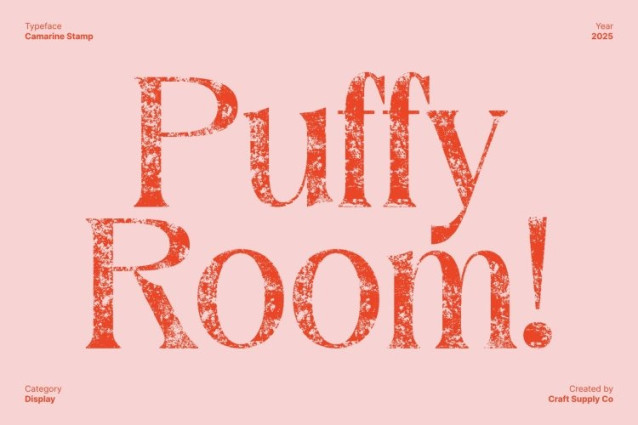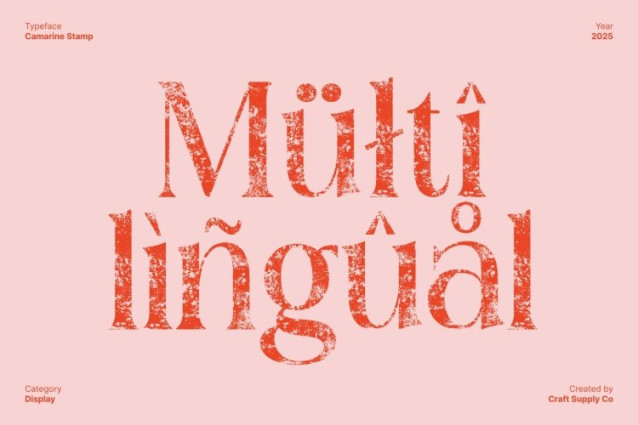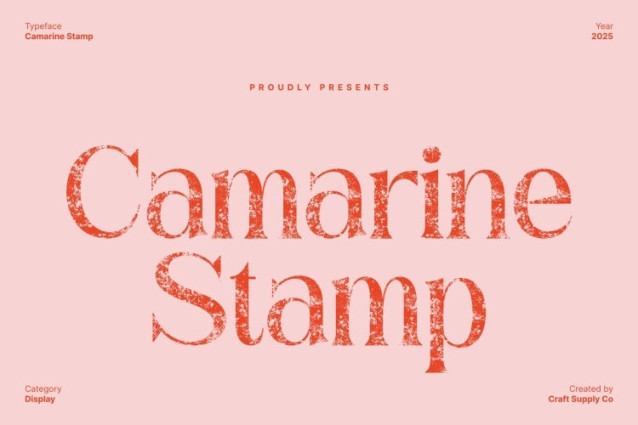
Camarine Stamp Font This is a modern classic serif font designed with slender serifs and a clean, contemporary structure. Its refined shapes and balanced proportions create a stylish, polished appearance that feels both timeless and current. This sophisticated form makes the font perfect for designers seeking elegance with a modern edge.
Expressive Stamp Texture for Artistic Character
Enhanced by a distinctive stamp effect, this brings depth, personality, and artistic imperfection to its elegant serif construction. The textured finish gives each character a handcrafted, vintage-inspired feel adding emotion and expressiveness to your typography. This combination of refinement and raw texture creates a dramatic visual presence.
Ideal for Vintage Branding, Editorials, Posters, and Creative Projects
Perfect for high-end branding, editorial layouts, dramatic posters, and expressive design work, elevates any project with its blend of modern sophistication and retro charm. Its textured details make it especially effective for luxury vintage branding, heritage-inspired graphics, book covers, and artistic promotional materials.
A High-End Serif with Timeless Style and Vintage Drama
This font merges the grace of classic serif typography with the character of stamped, tactile texture resulting in a distinctive typeface that feels elegant, expressive, and visually captivating. Use it to create designs that radiate sophistication while embracing a touch of handcrafted drama. This font ensures every layout stands out with refined beauty and artistic depth.